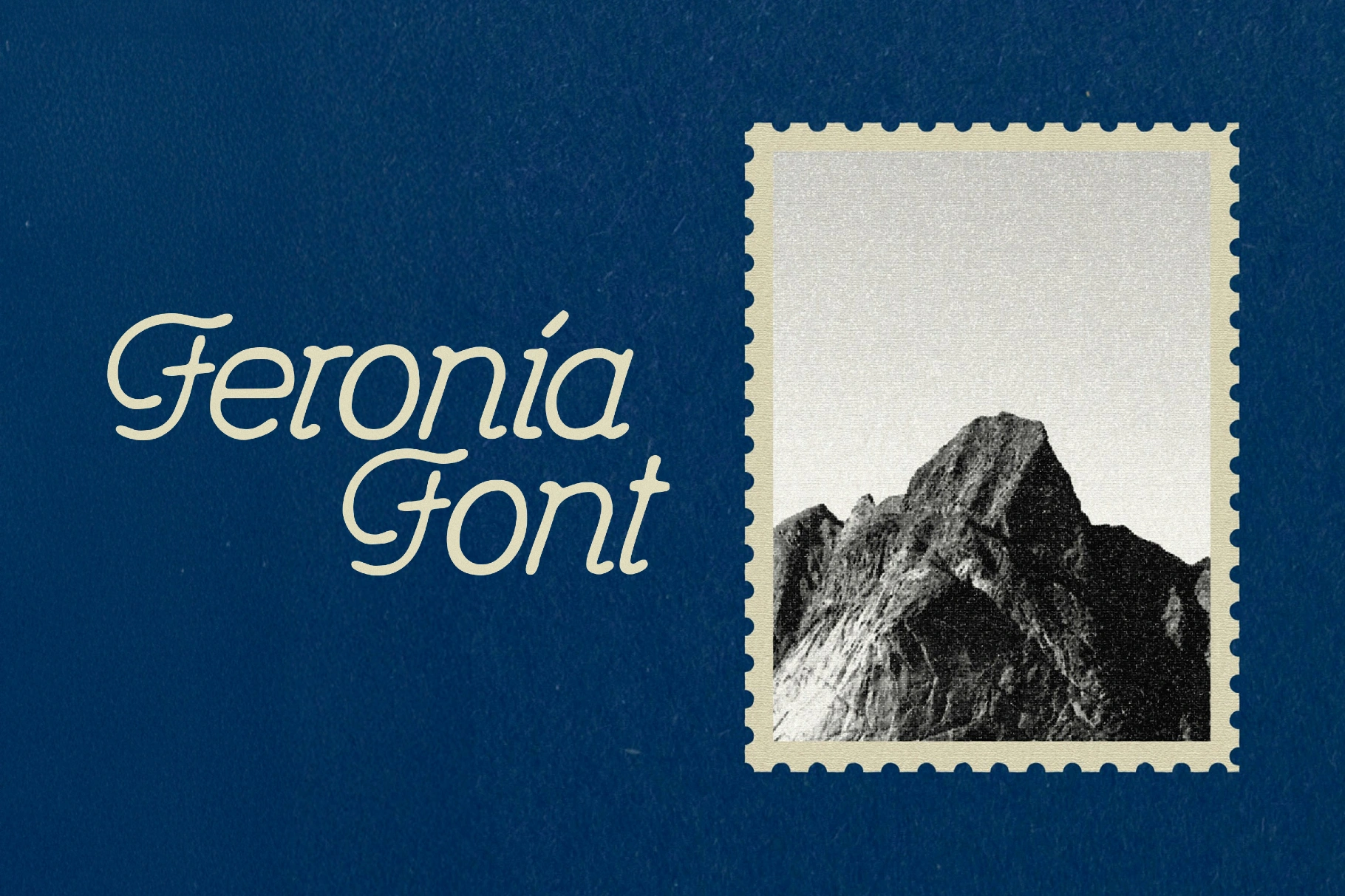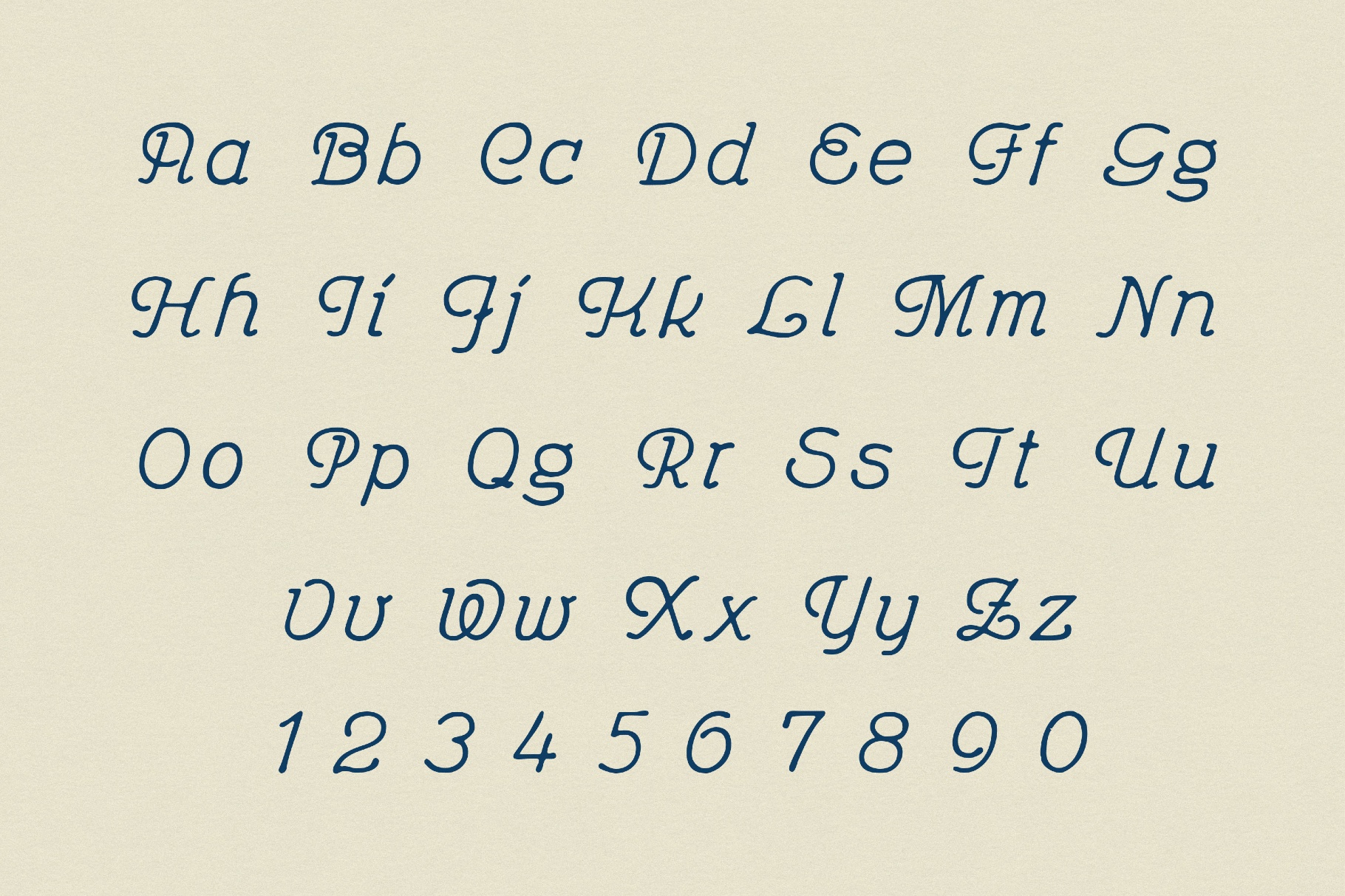
Feronia — Art Nouveau Signature Font
Feronia
Feronia reflects the poised elegance of Art Nouveau bookplates and early twentieth-century European posters. The high-contrast font with sculpted curves and expressive ligatures is a natural choice for luxury branding, wine labels, boutique logos, wedding stationery, editorial headlines, book covers, perfume packaging, gallery invitations, fashion campaigns, and cinematic title treatments.
- Multilingual support across an extended Latin script.
- Ligatures.